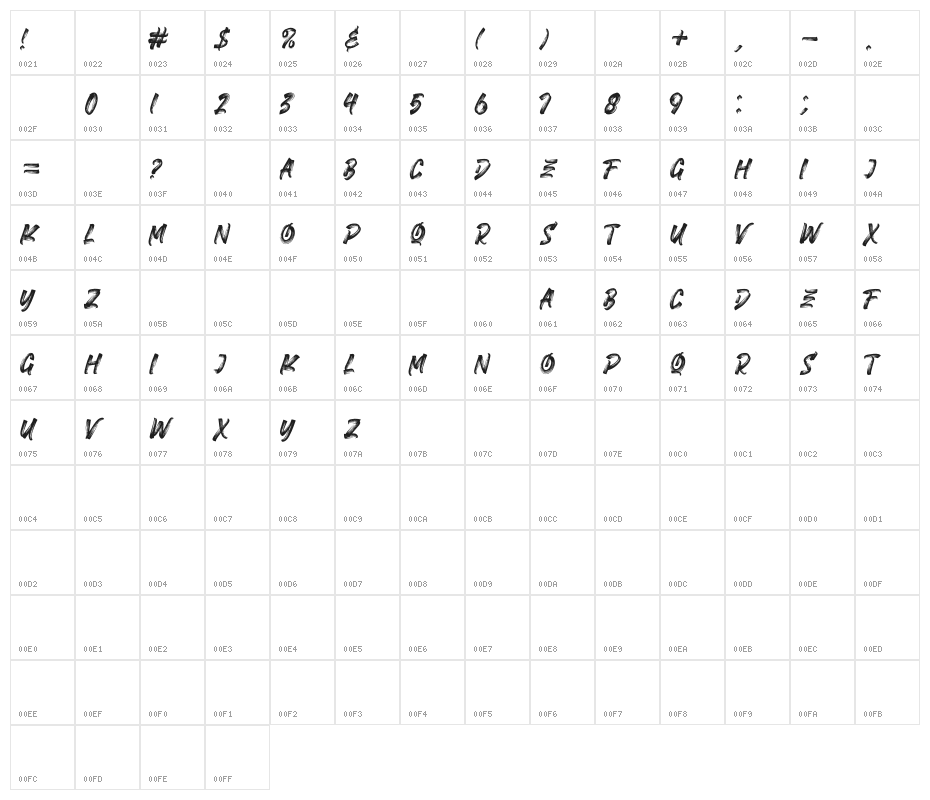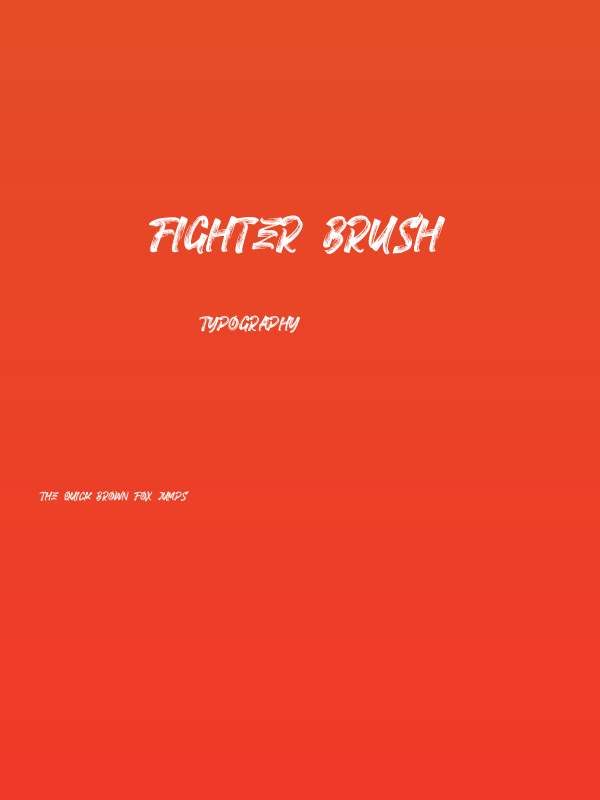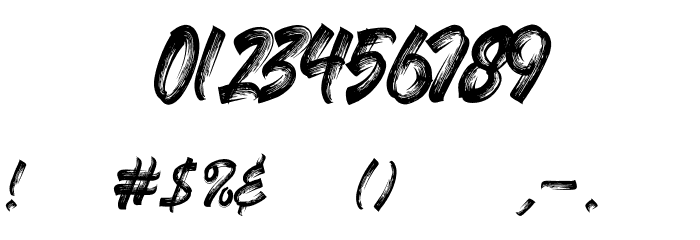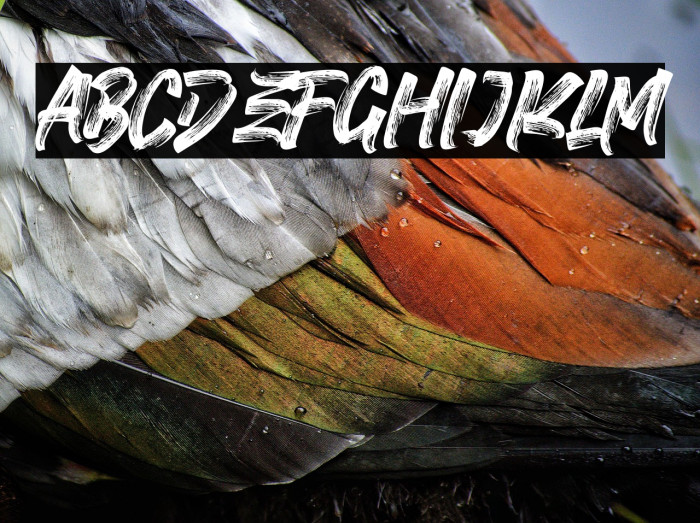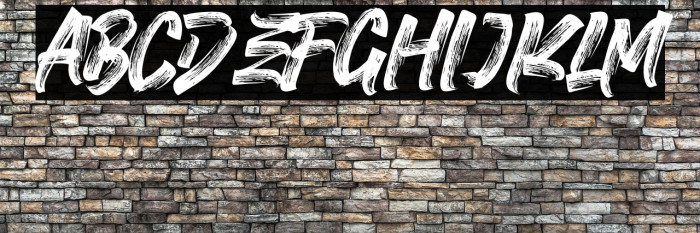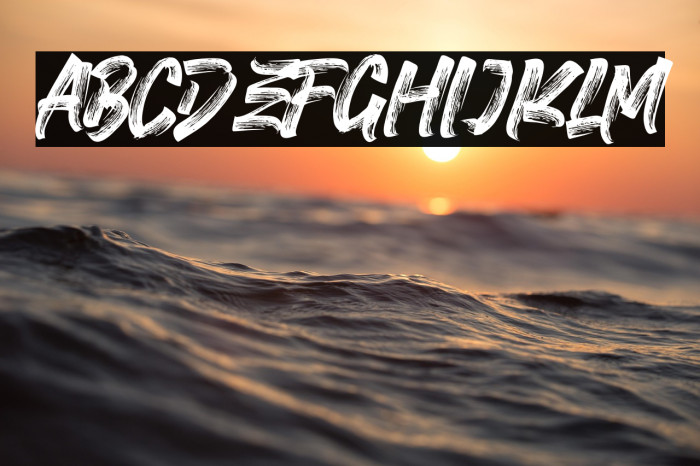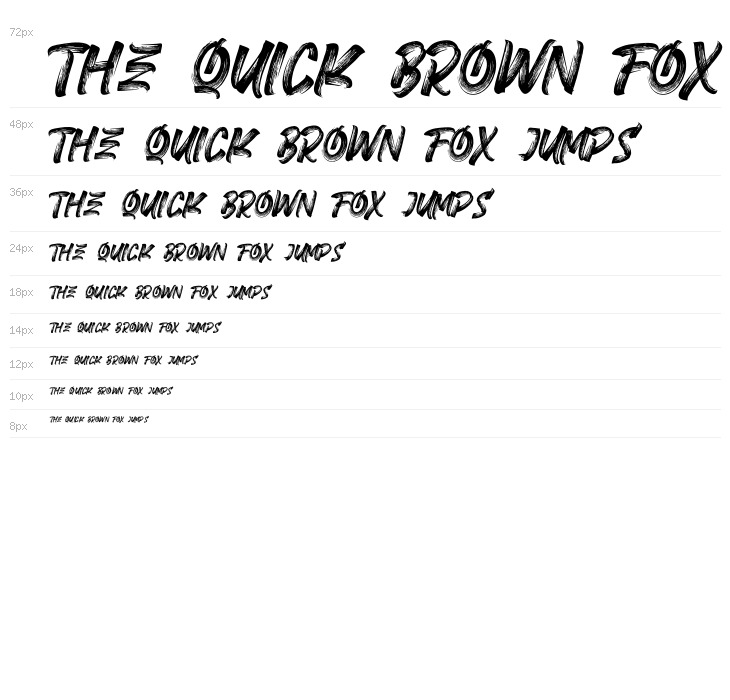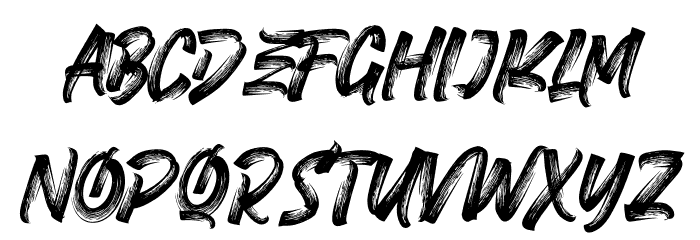
FIGHTER BRUSH Font
This font exudes a dynamic and energetic vibe, characterized by its bold, brushstroke-like appearance. The letters are crafted with a sense of movement, as if painted with a swift, confident hand. The strokes are thick and textured, giving a sense of depth and dimension. Each character maintains a consistent style, with slightly irregular edges that enhance its handcrafted feel. The uppercase and lowercase letters are well-balanced, while the numerals and special characters integrate seamlessly into the overall design. This font is perfect for projects that require a strong, artistic touch.
| Proposed Projects | Ideal for posters, logos, branding, and any design needing a bold, artistic flair. |